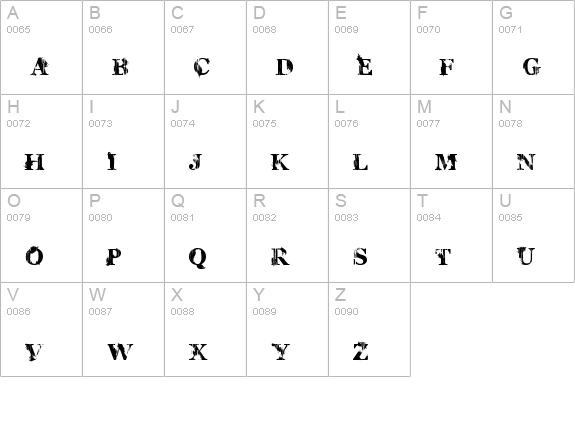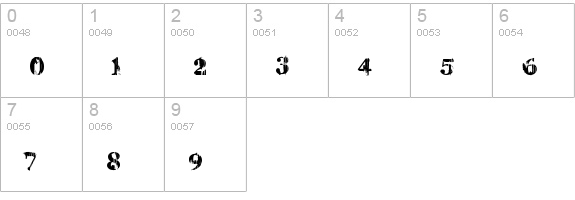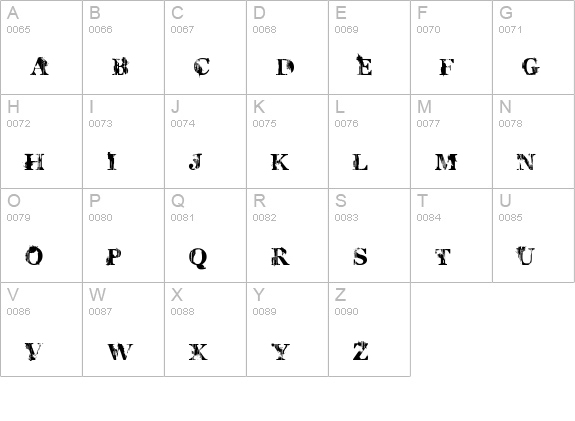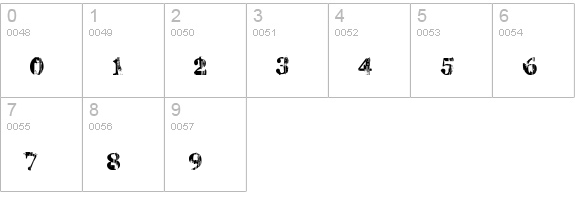
Charles S. font is a stunning display typeface that exudes elegance and sophistication. Its unique blend of classic and modern elements makes it perfect for a wide range of design projects. This versatile font is ideal for headlines, logos, posters, and more. With its bold yet refined appearance, Charles S. font commands attention and adds a touch of luxury to any design. The best part is that Charles S. font is completely free to download at FontsMarket.com. Users can easily access this exceptional font and elevate their designs without any cost. Don't miss out on this amazing opportunity to enhance your projects with the timeless charm of Charles S. font. Download it today and let your creativity soar.